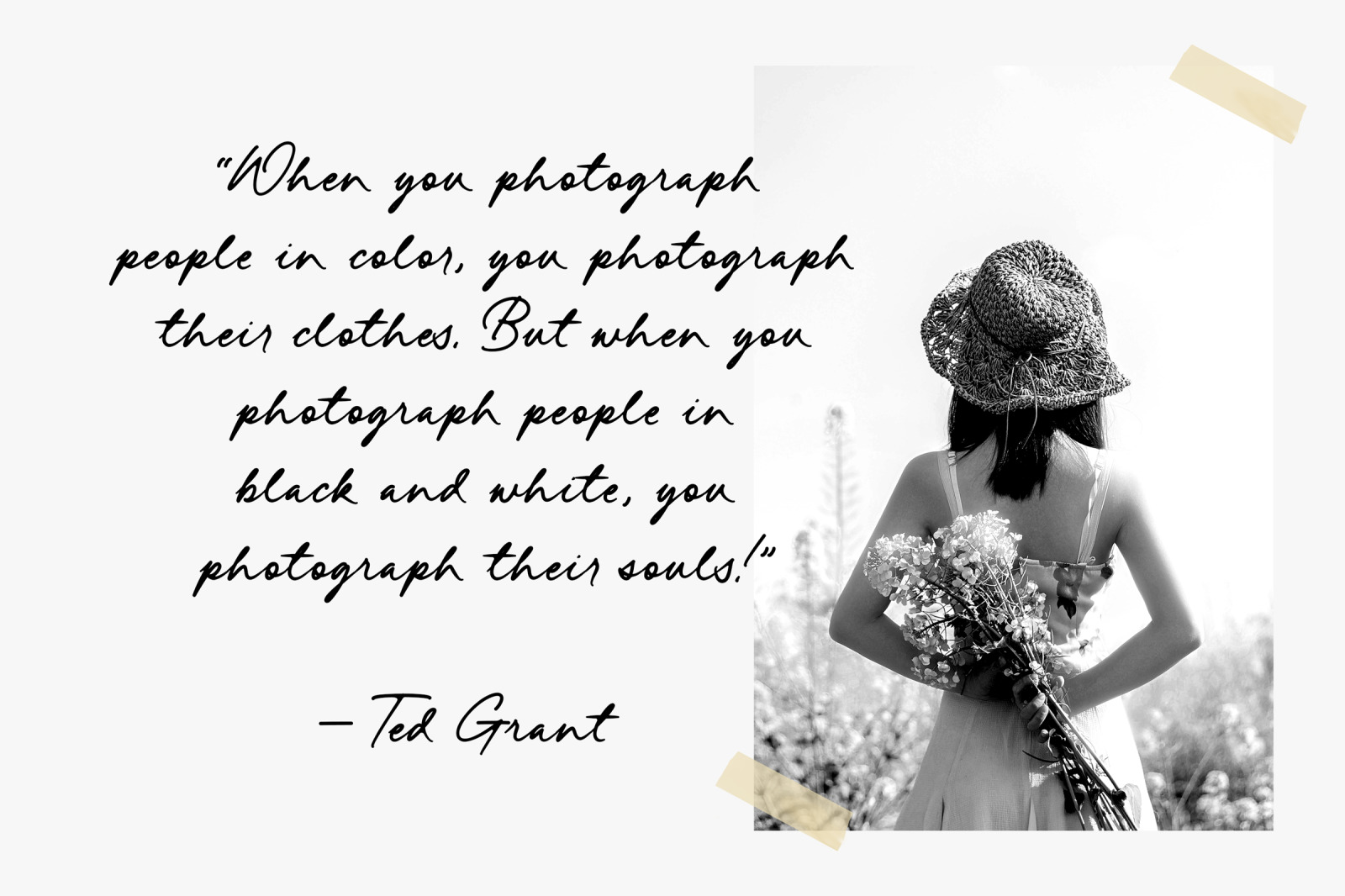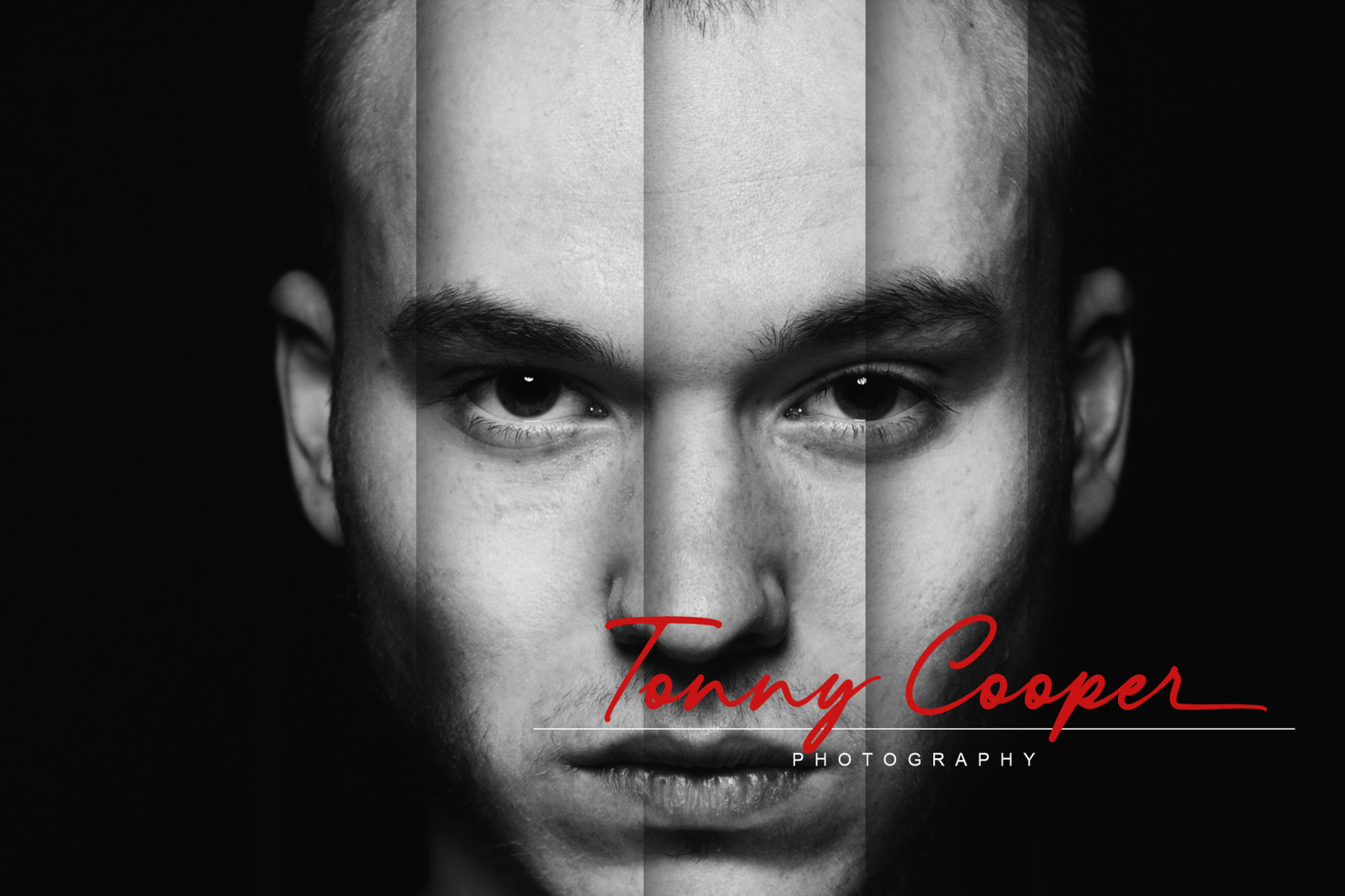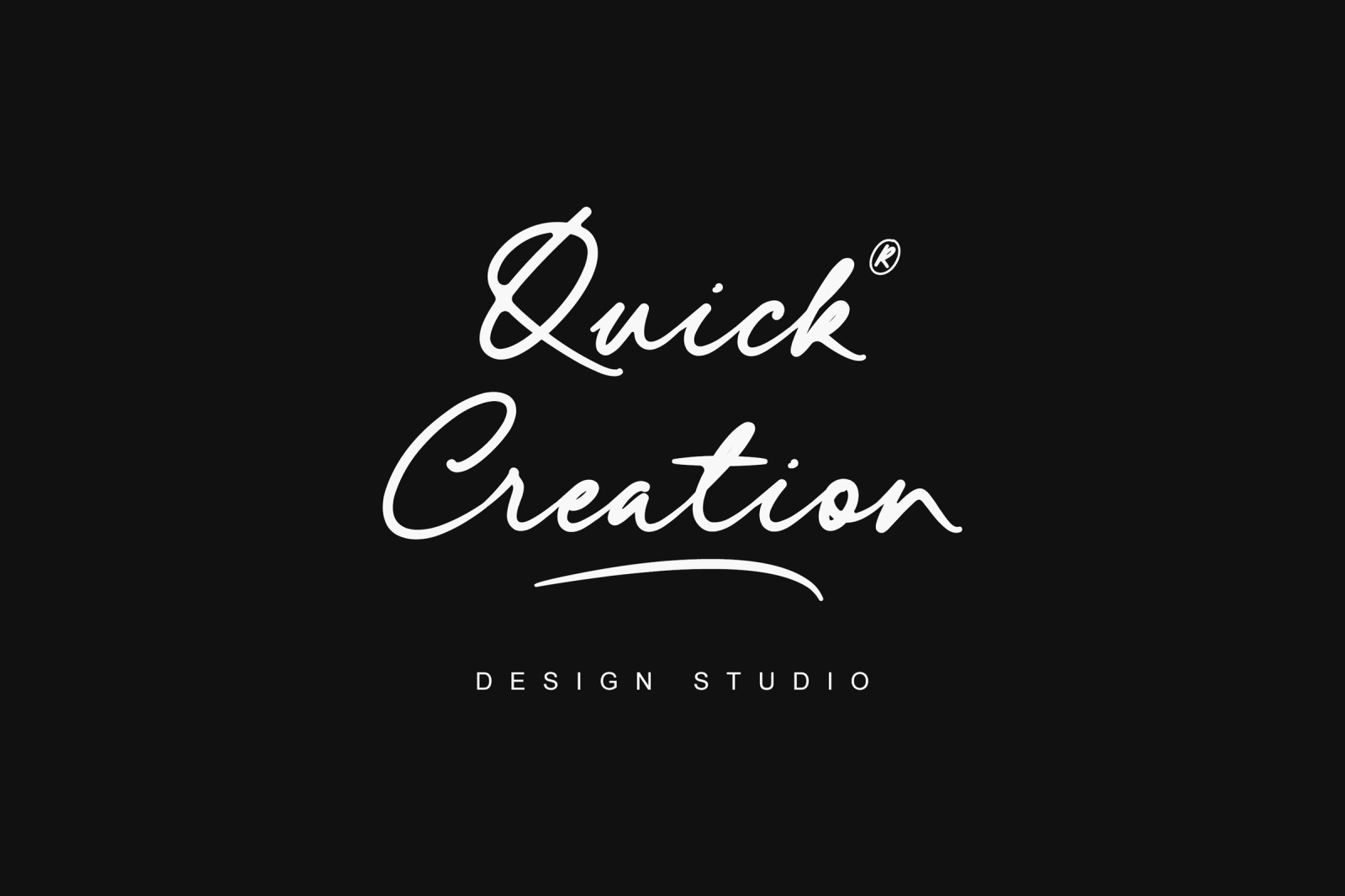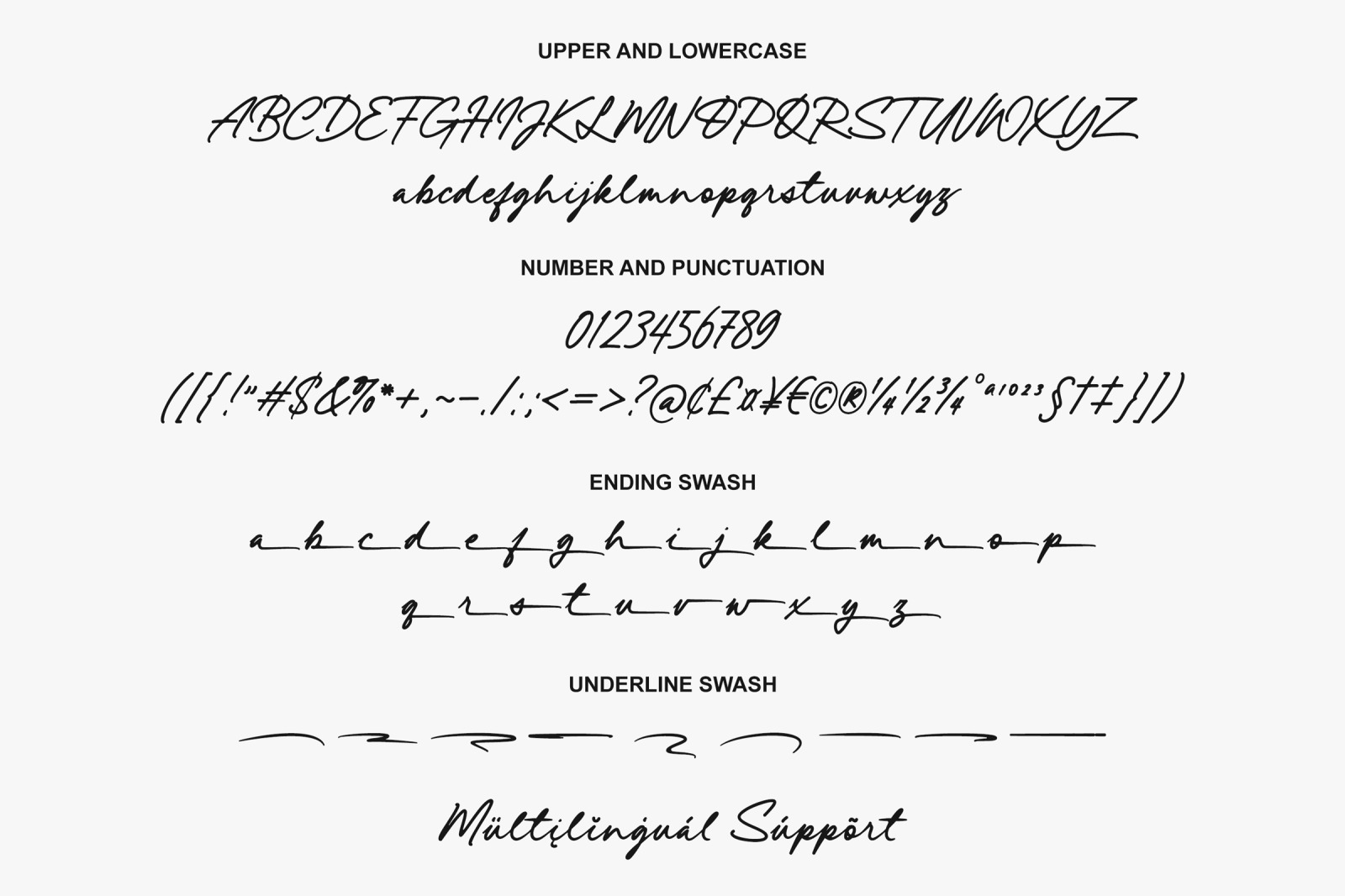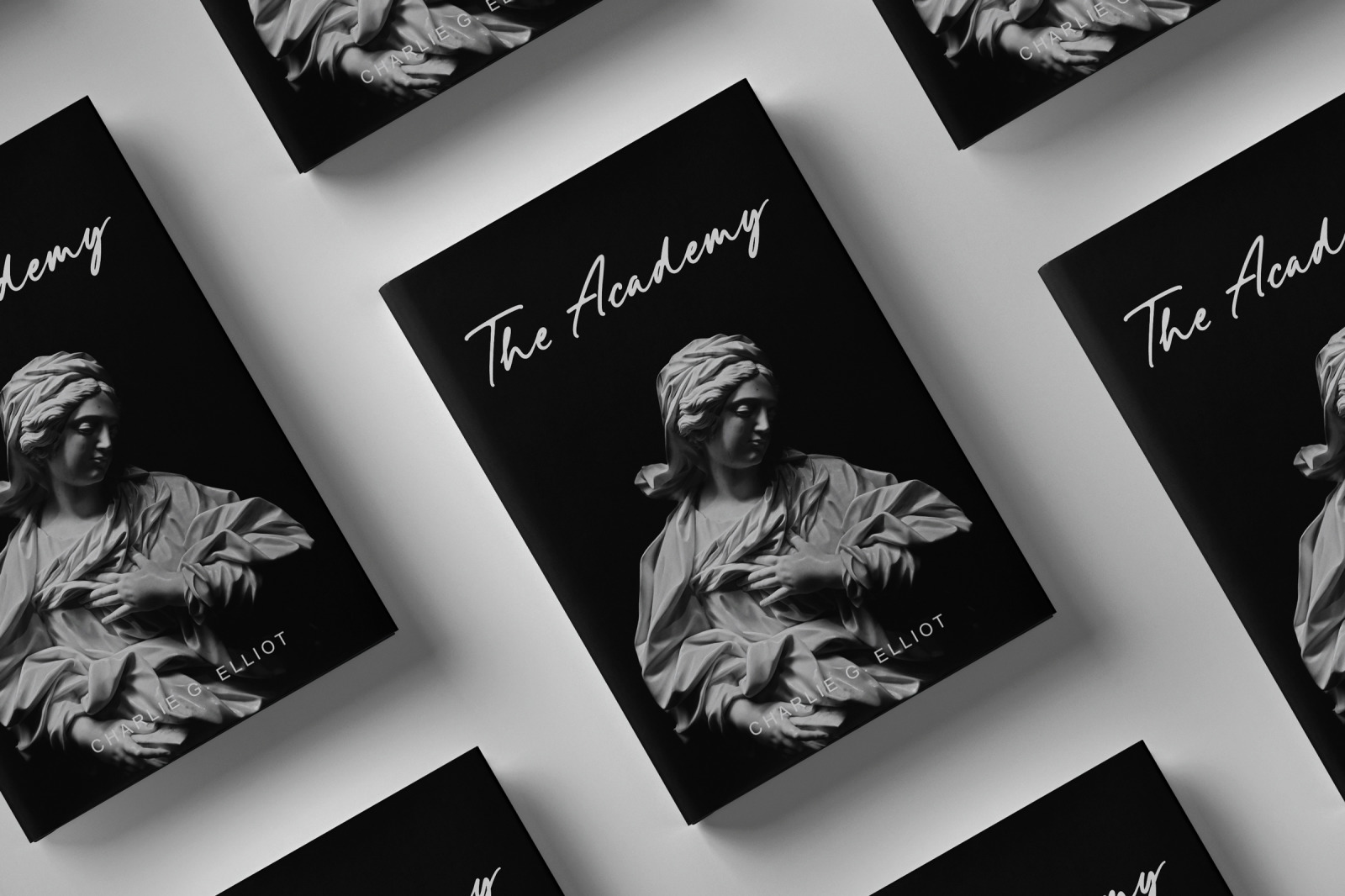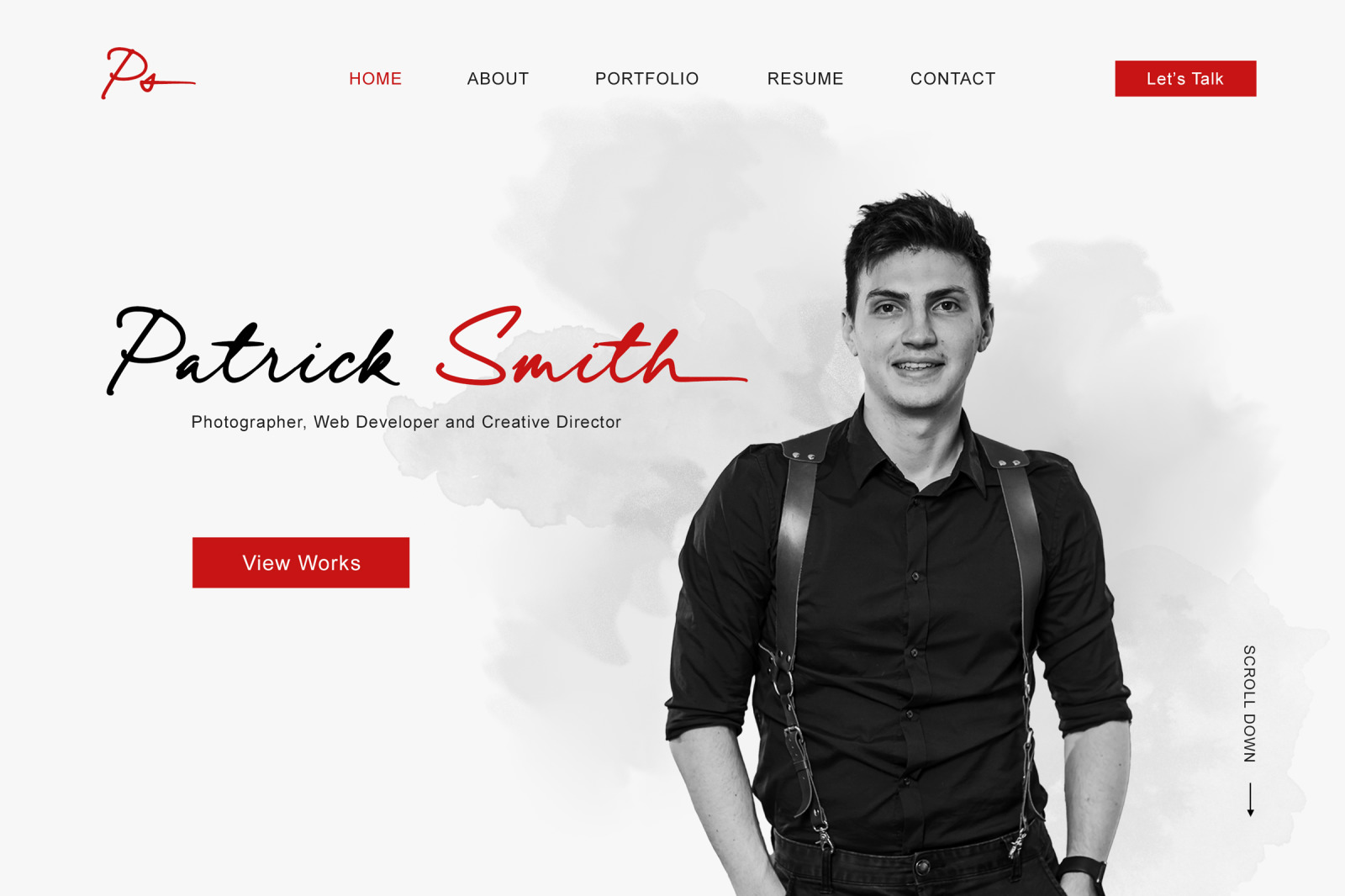
Dockyard Font
Dockyard is a relaxed handwritten font, has a gentle and beautiful flow. This font is perfect for logo, wedding invitations, stationery, photography, social media posts, product packaging, greeting cards, and much more!
FEATURES
-Swash
-Contextual Alternates
-Uppercase and Lowercase letters
-Numbering and Punctuations
-Also Multilingual Support